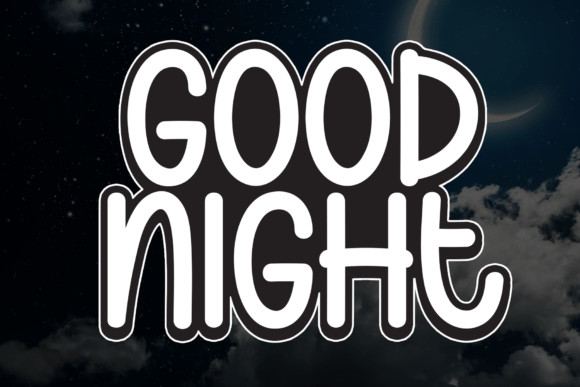
Good Night Font: Bringing a Touch of Whimsy to Your Designs
As a designer, there’s nothing quite like the thrill of creating something that sparks joy. Whether it’s a wedding invitation, a birthday card, or a simple note to a loved one, the right font can make all the difference. For me, that font is often Good Night Font – a sweet and friendly handwritten font that adds a touch of whimsy to any design.
Good Night Font is more than just a pretty face; it’s a versatile tool that can help bring your creative vision to life. With its cute and fun aesthetic, it’s perfect for adding a playful touch to any design. Whether you’re a seasoned designer or just starting out, Good Night Font is a valuable addition to your toolkit – and with its wide range of applications, the possibilities are endless.
Key Features of Good Night Font
- Font Family: Good Night Font is a unique, hand-drawn font designed for creating a warm and inviting atmosphere.
- Font Size: The font family includes multiple weights, ranging from Thin (100) to Black (900), allowing for a wide range of design applications.
- Unique Characteristics: The Good Night Font features a distinctive, hand-drawn style with subtle texture and imperfections, giving it a unique, human touch.
Good Night Font Review
Overall, I’d say the Good Night Font is a decent addition to any designer’s toolkit. Here are a few things that work well:
- ✨ Its modern and sleek aesthetic makes it perfect for creating a sophisticated and calming atmosphere in digital designs.
- ✨ The font is highly legible, even at smaller font sizes, making it ideal for body text in articles and blogs.
- ✨ The font’s subtle rounded edges give it a friendly and approachable feel, making it suitable for various design projects.
- ⚠️ The font lacks a bold or condensed weight, which may limit its usability in certain design scenarios.
- ⚠️ The font’s design may not be suitable for projects that require a more dramatic or attention-grabbing feel.
Overall, I’d give the Good Night Font 3.5 out of 5 stars. While it’s a solid choice for many design projects, its limitations may make it less versatile than other fonts in my collection. Nonetheless, it’s a great addition to any designer’s toolkit, especially for projects that require a calm and soothing atmosphere.
Use “Good Night Font” for creating bedtime-themed designs, such as sleep masks, pillowcases, or bedtime stories.
Experiment with different font sizes and styles to create a soothing and relaxing atmosphere.
Combine “Good Night Font” with other design elements, such as calming colors and gentle textures, to create a peaceful ambiance.
Alternatives to Good Night Font for Designers
Pacifico is a beautiful, elegant script font that works well for romantic and vintage-themed designs. It’s ideal for wedding invitations, greeting cards, and other creative projects where a touch of sophistication is needed. Compared to Good Night Font, Pacifico has a more refined and polished feel, making it suitable for high-end designs.
Great Vibes is a modern, stylish font that’s perfect for creating a lively and energetic atmosphere. It’s great for music-related designs, party invitations, and social media graphics. While Good Night Font has a more subdued tone, Great Vibes is bolder and more attention-grabbing, making it ideal for designs that need to stand out.
Carolyna Pro is a elegant, sophisticated font that’s ideal for luxury brands and high-end designs. It’s perfect for creating a sense of refinement and sophistication, making it suitable for fashion, beauty, and lifestyle brands. Compared to Good Night Font, Carolyna Pro has a more polished and refined feel, making it suitable for high-end designs.